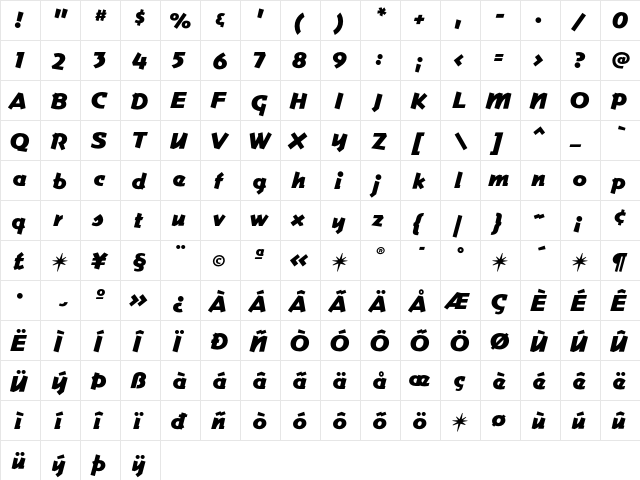
Commerce Fat
Design Context for Commerce Typeface
Commerce is a composed and adaptable typeface that performs quietly and consistently across a wide range of design contexts.
Pro Tip: Use Commerce in both headline and body roles to test its range before committing to a single application.